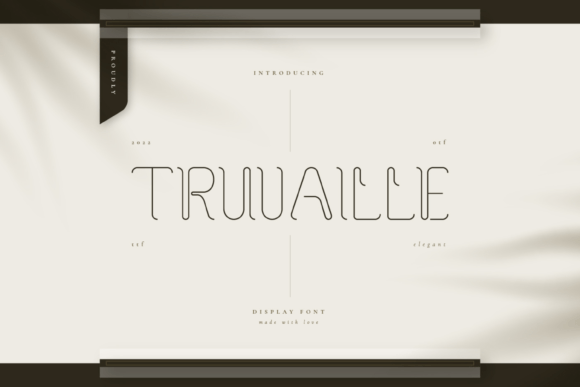
Step into a world of typographic intrigue with Truvaille Font, the display font that tantalizes your imagination. Inspired by the exquisite delicacy of truffles, this font embodies the essence of culinary artistry.
Crafted by the skilled hands of inferno.type3, Truvaille possesses an alluring silhouette, mimicking the slender form of a truffle oil bottle. Its curves dance gracefully, inviting you to indulge in a sensory feast for your eyes.
As a display font, Truvaille is a culinary masterpiece, perfectly suited for tantalizing menus and captivating posters that evoke the allure of gourmet cuisine. Its versatility extends to logos, branding, and fashion, infusing a touch of elegance into every design.
Whether you're a budding chef, a culinary connoisseur, or a design enthusiast, Truvaille Font will ignite your creativity. Its unique character adds a touch of sophistication to any project, transforming ordinary text into an extraordinary culinary adventure.